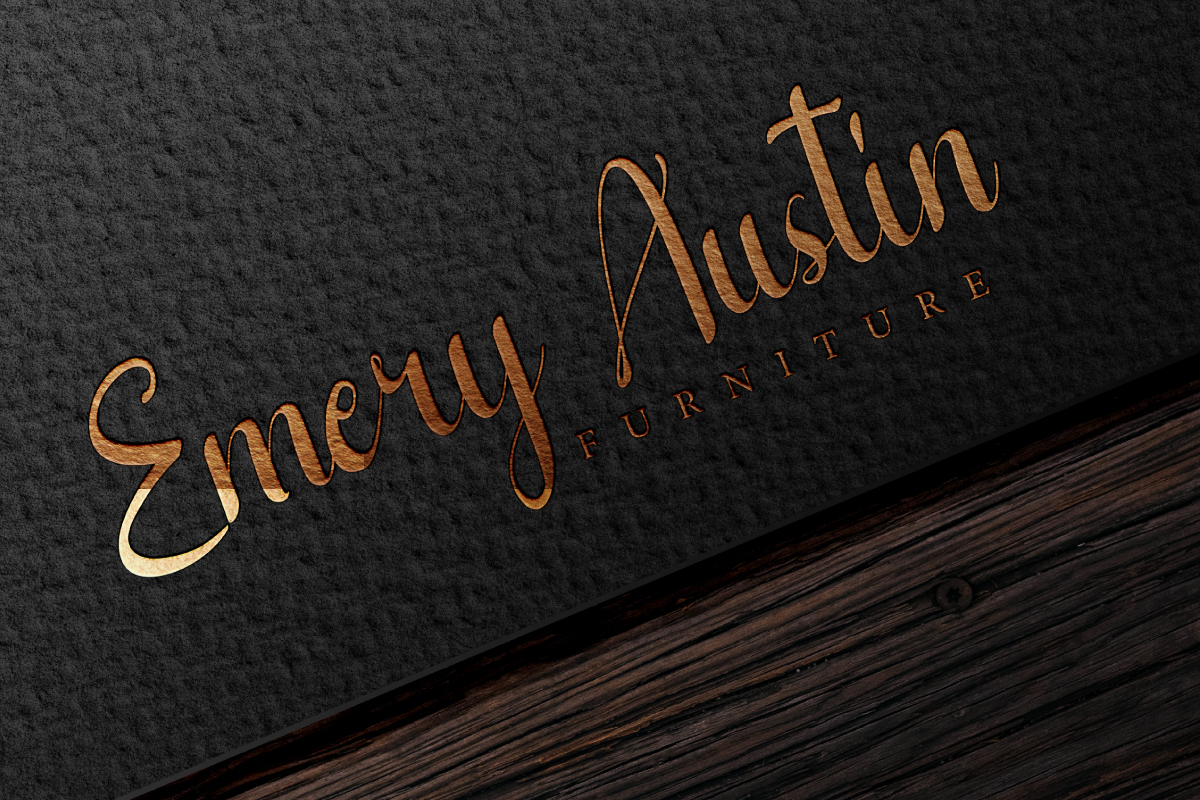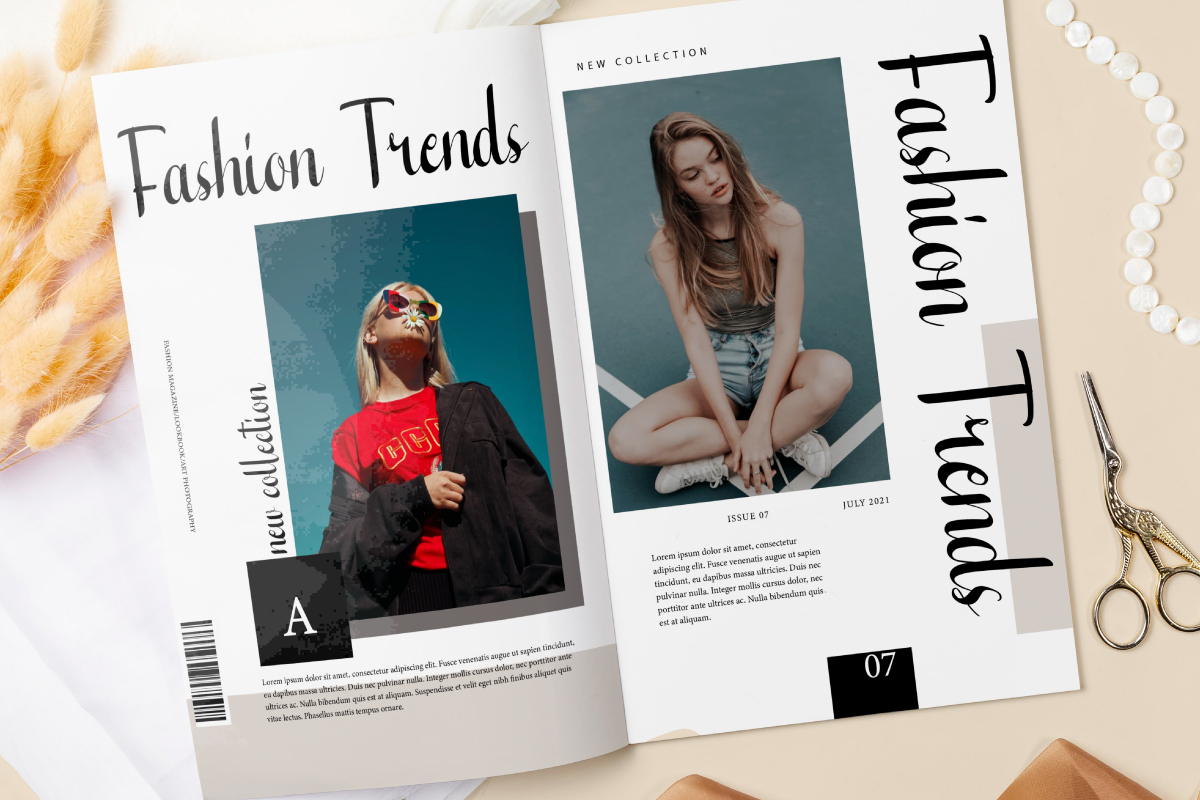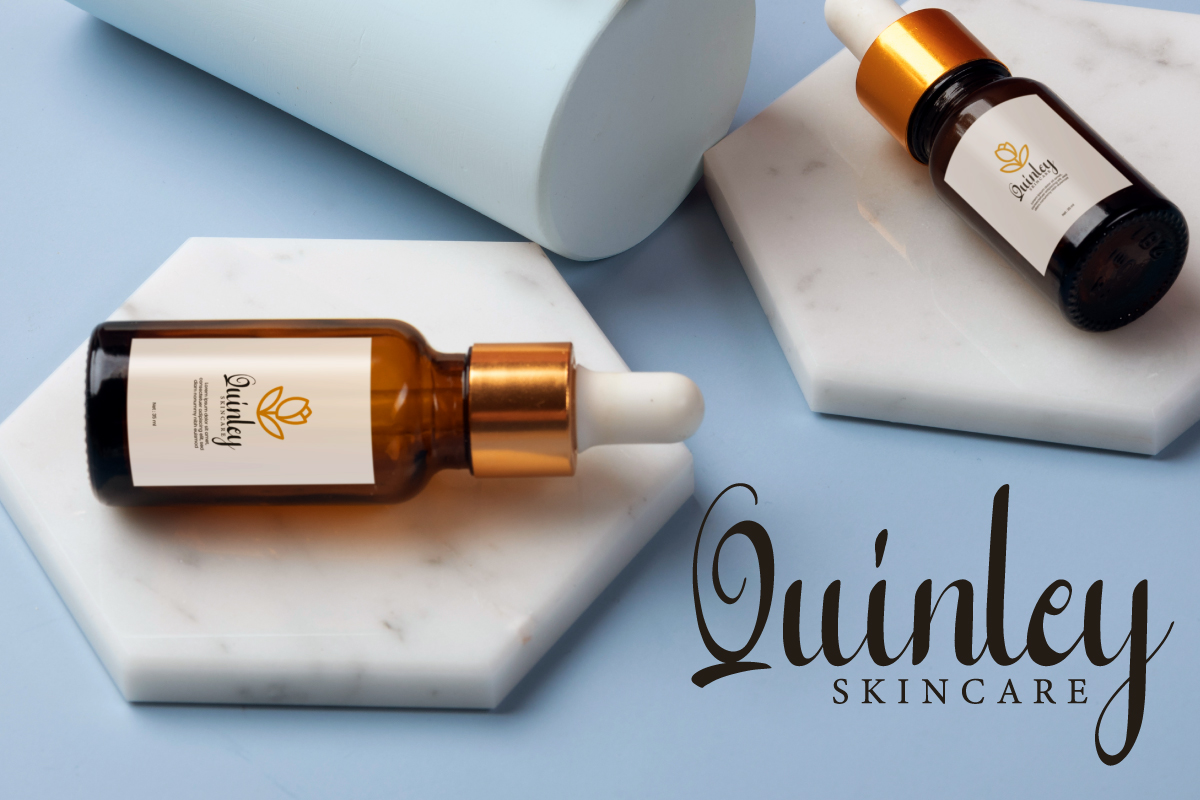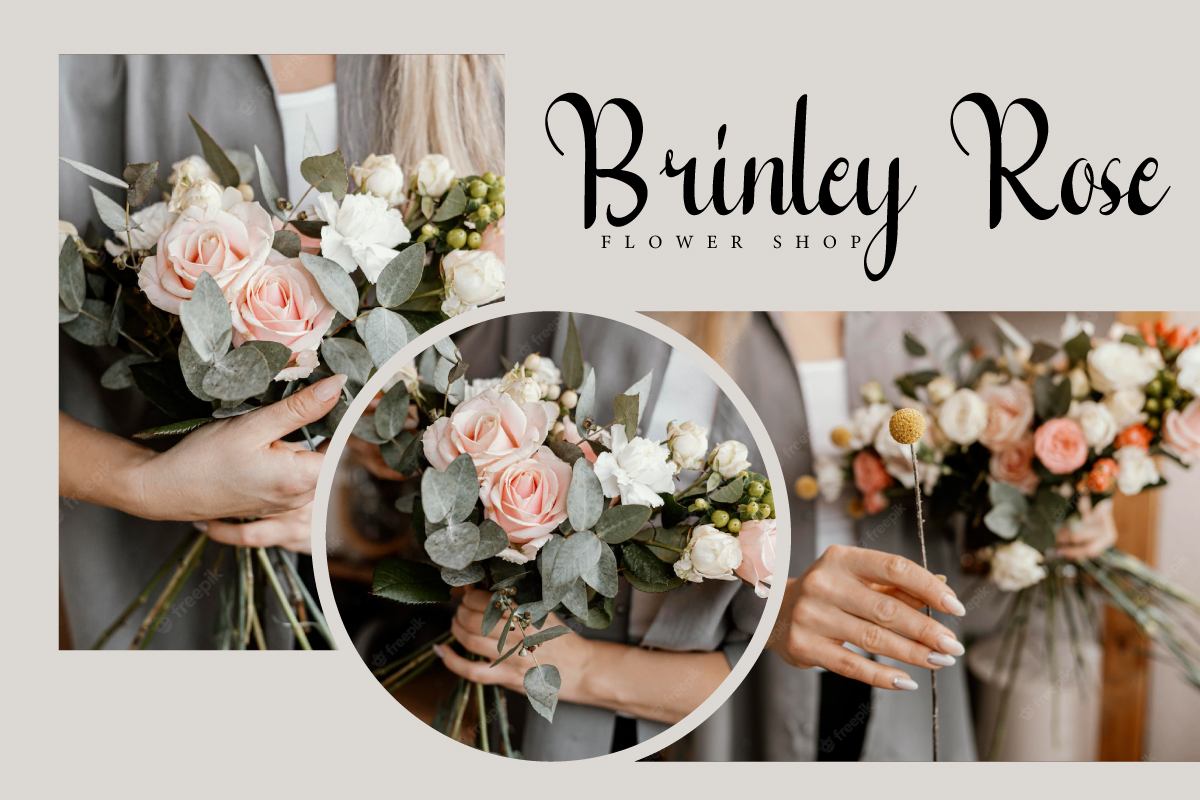
Laura Script Font
Laura Script Font is a special script font with a unique calligraphy look. The balance of thick and thin from a flawless brush and easy to read that will add to the beauty of your creative designs, such as apps, brochure, cover, embossed logo, label, magazine catalog, packaging design, stationery, title, website, and much more!